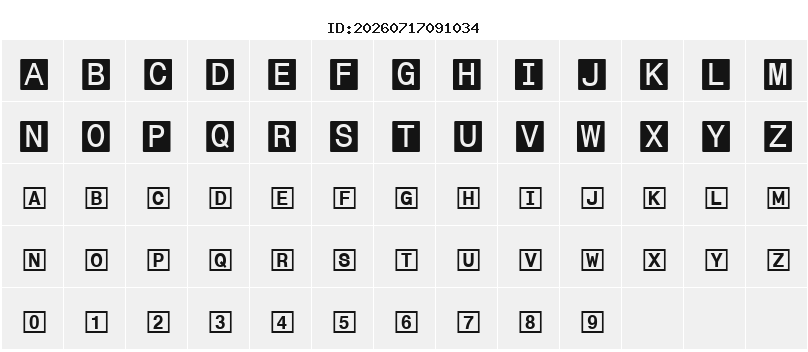
Boxed In Preview
• Font Name: Boxed In
• Full Font Name: Boxed In
About Boxed In.ttf
Boxed In.ttf is a modern, elegant sans-serif font designed for ultimate readability and visual harmony. Perfect for branding, headlines, web design, and print materials.